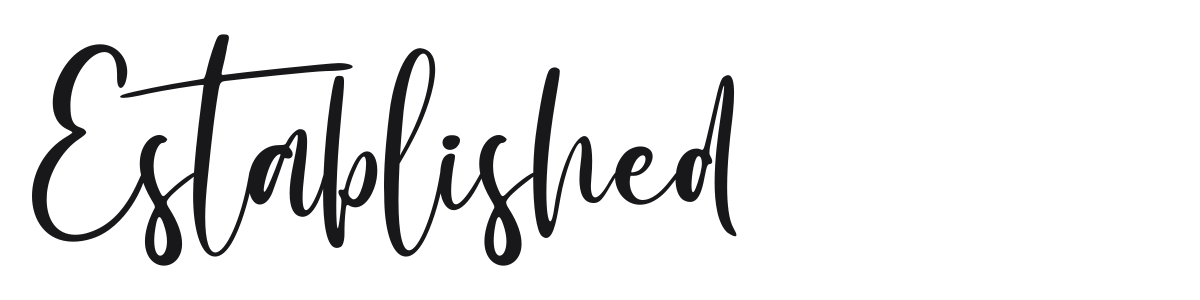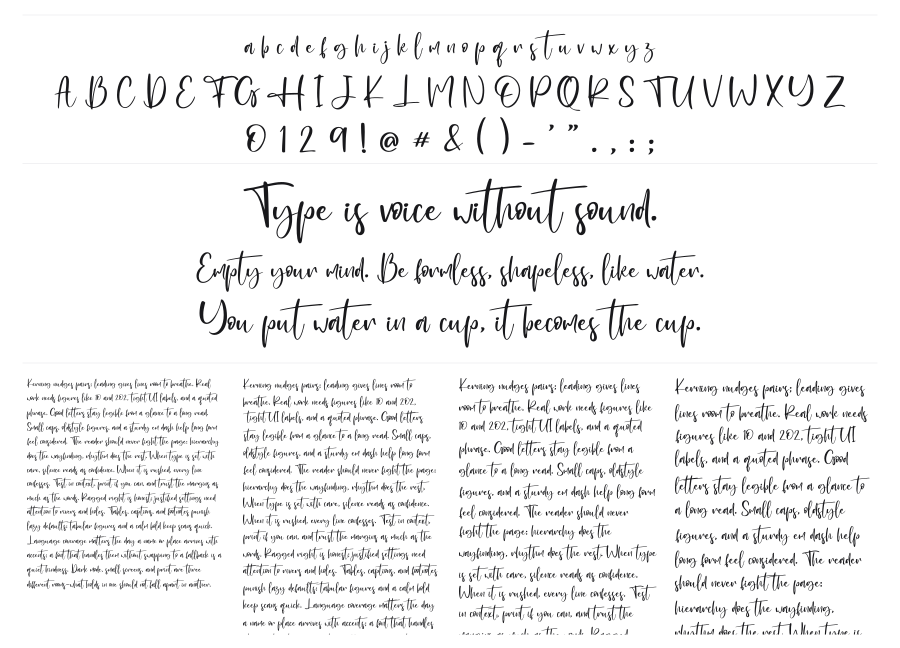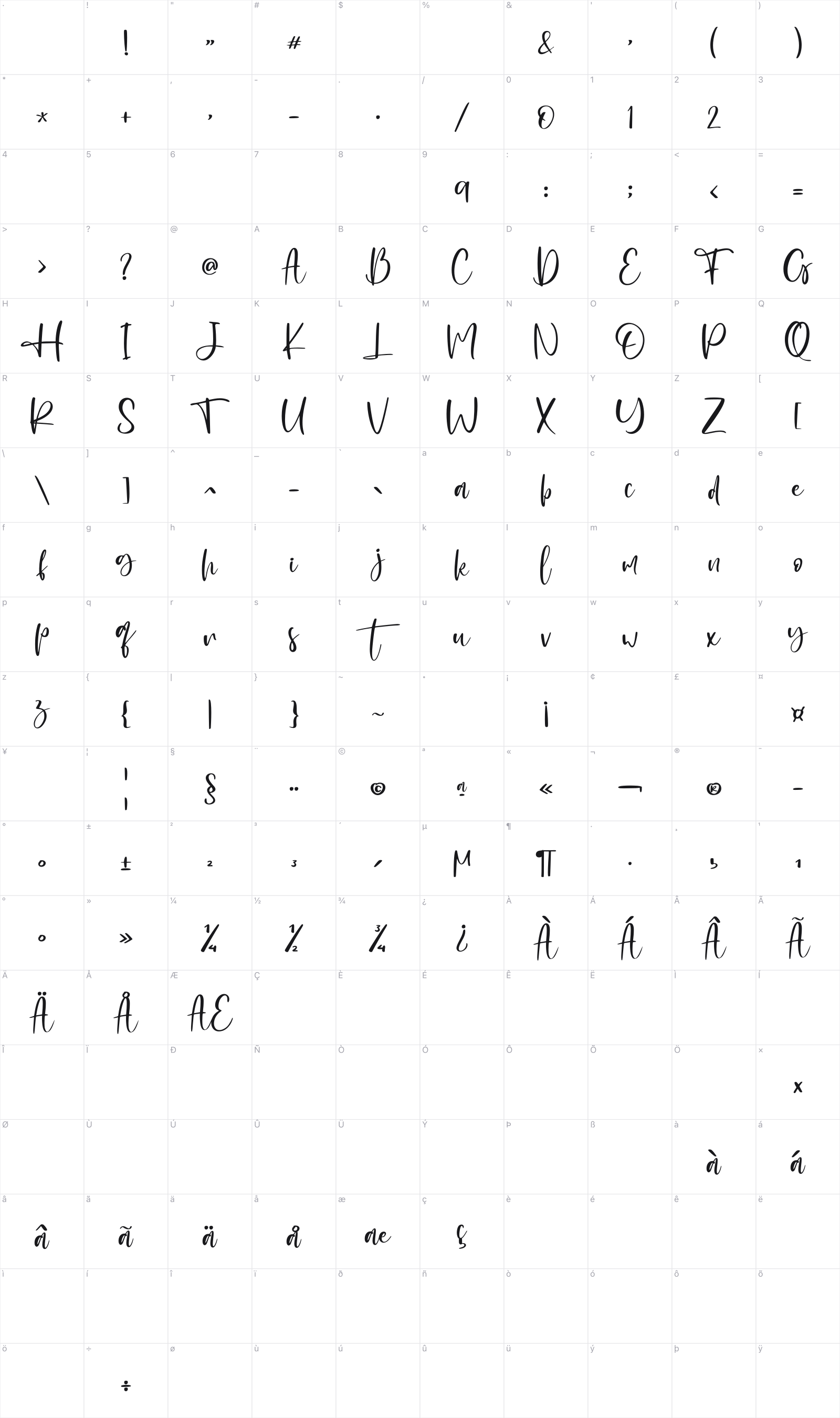
Established
Established is a contemporary brush script from Haksen Studio with lively, high-contrast strokes and sweeping connected characters. The flowing baseline and dramatic thin-to-thick transitions give it the energy of fresh ink on paper, somewhere between casual handwriting and refined calligraphy. It carries well on wedding stationery, boutique branding, and any project that needs a warm human touch.